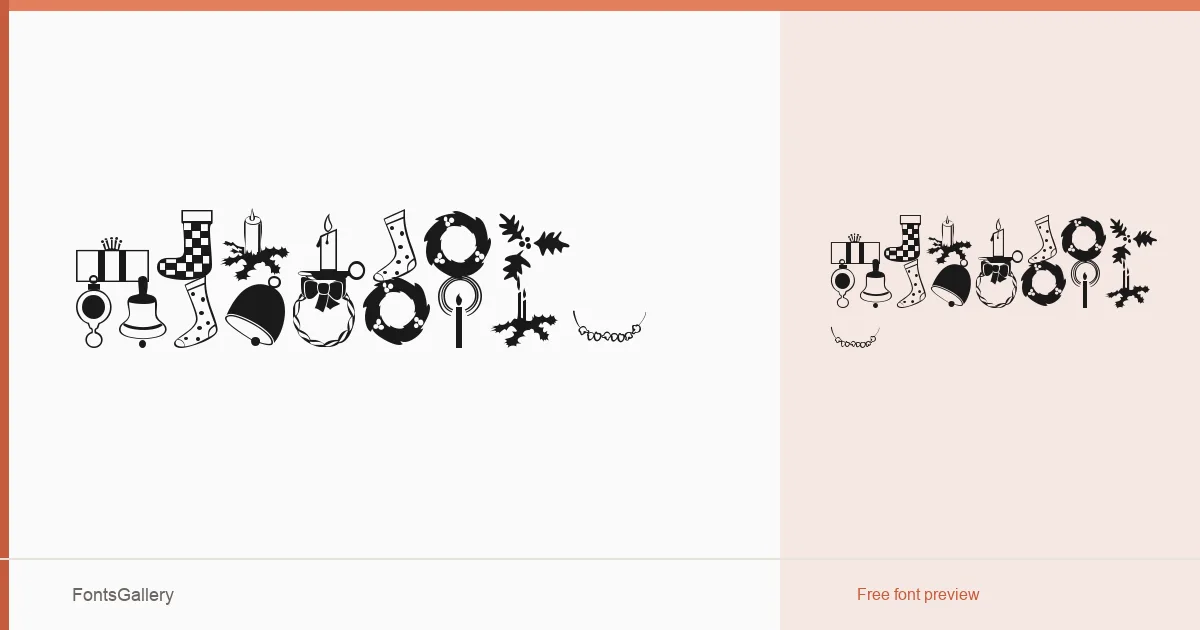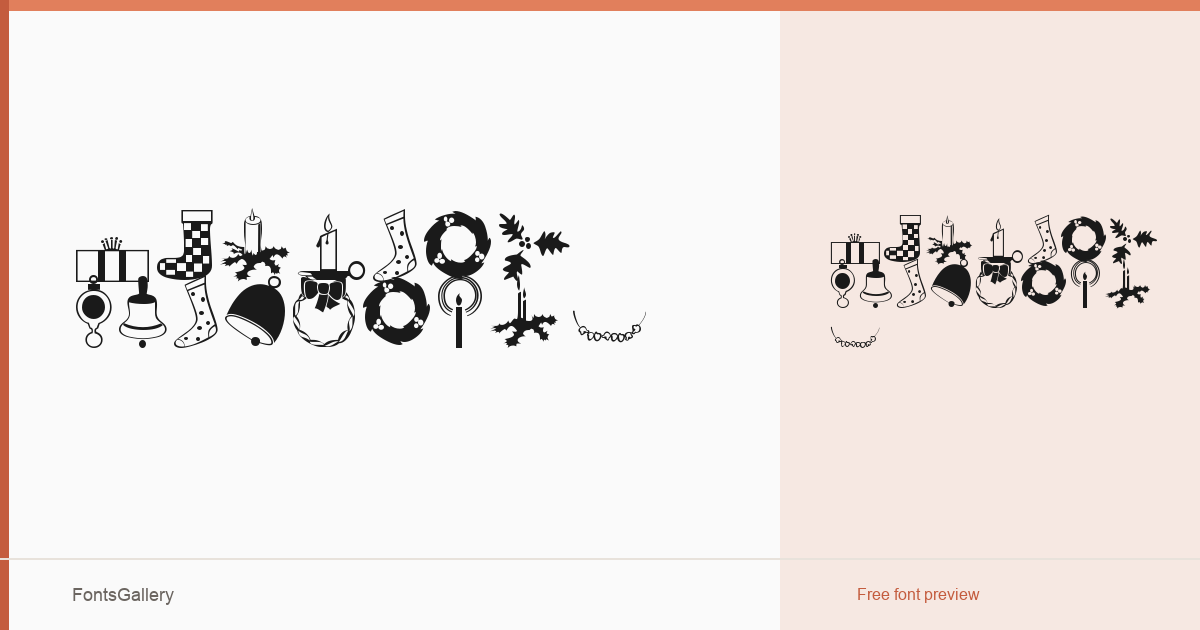
About Journal Dingbats 4 Font
Journal Dingbats 4 is a decorative dingbat typeface from Typographer Mediengestaltung that brings a playful, vintage charm to any creative project. Packed with whimsical symbols and ornamental characters, this font adds a distinctive, hand-crafted personality to designs. Its rich collection of decorative glyphs makes it a versatile tool for designers seeking expressive, character-filled visuals.
True to its decorative category, Journal Dingbats 4 exudes a playful and whimsical spirit with a nostalgic, vintage sensibility running throughout its illustrated symbols. Each glyph carries an ornamental quality that feels both charming and timeless, evoking the warmth of hand-drawn artwork. The overall aesthetic is lighthearted and imaginative, making it an instantly engaging addition to any layout.
Journal Dingbats 4 shines in contexts that call for decorative flair, including packaging design, invitation cards, greeting cards, children's books, and social media graphics where eye-catching embellishments are key. It pairs beautifully with clean, modern typefaces like Helvetica to create a striking contrast, or with the elegant styling of Aresink for a more cohesive vintage-meets-decorative aesthetic.